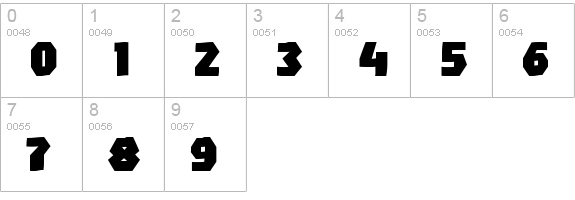
MightyWindyBlack Font Details
MightyWindyBlack font is a bold and powerful typeface that exudes strength and confidence. With its thick lines and sharp edges, this font is perfect for making a statement and grabbing attention. The striking design of MightyWindyBlack font makes it ideal for headlines, posters, logos, and other display purposes. What's even better is that MightyWindyBlack font is completely free to download at FontsMarket.com. This means you can add this impressive font to your collection without breaking the bank. Don't miss out on this bold and impactful typeface - download MightyWindyBlack font today and take your designs to the next level!